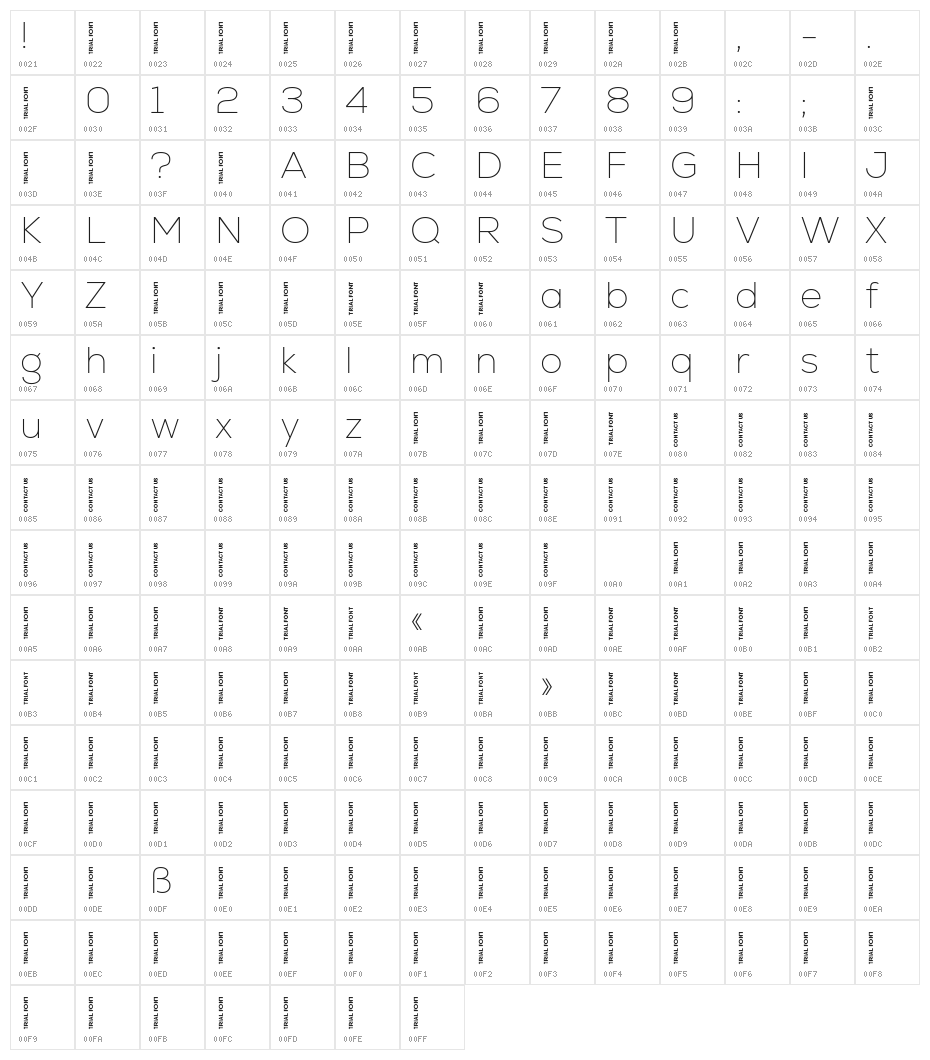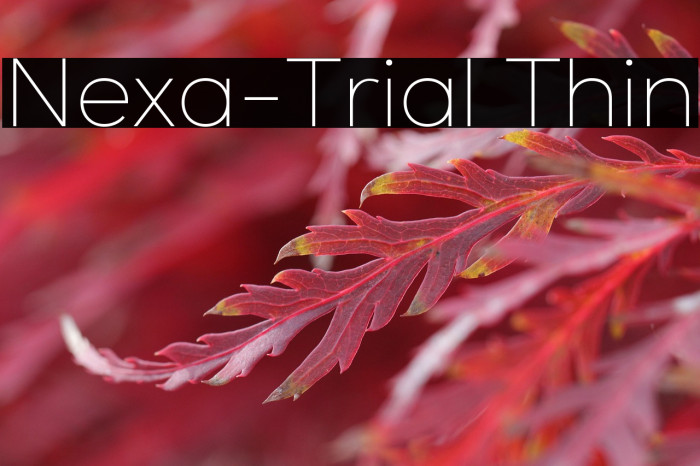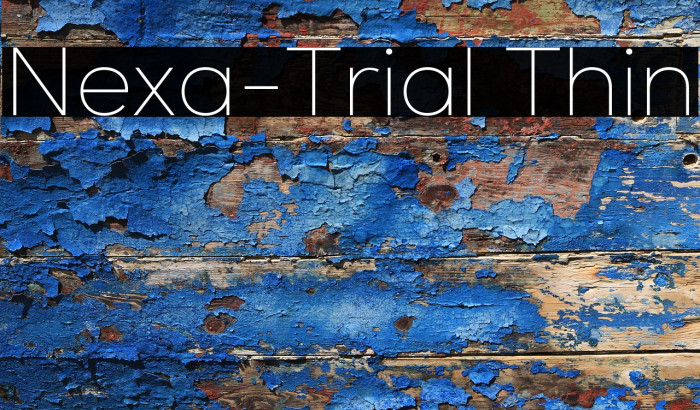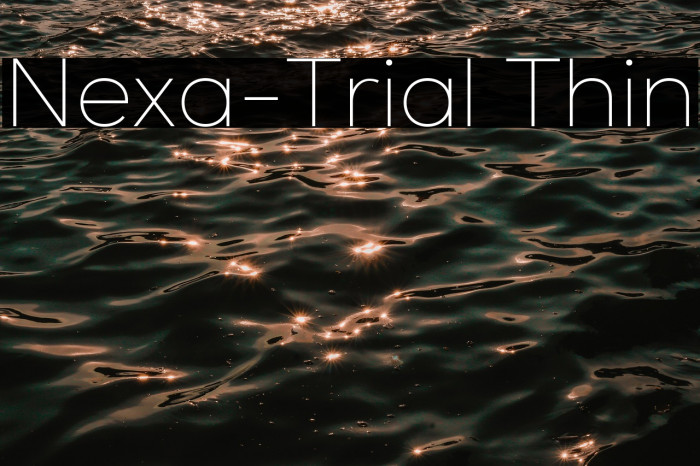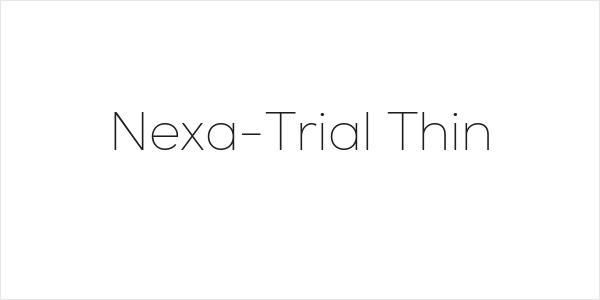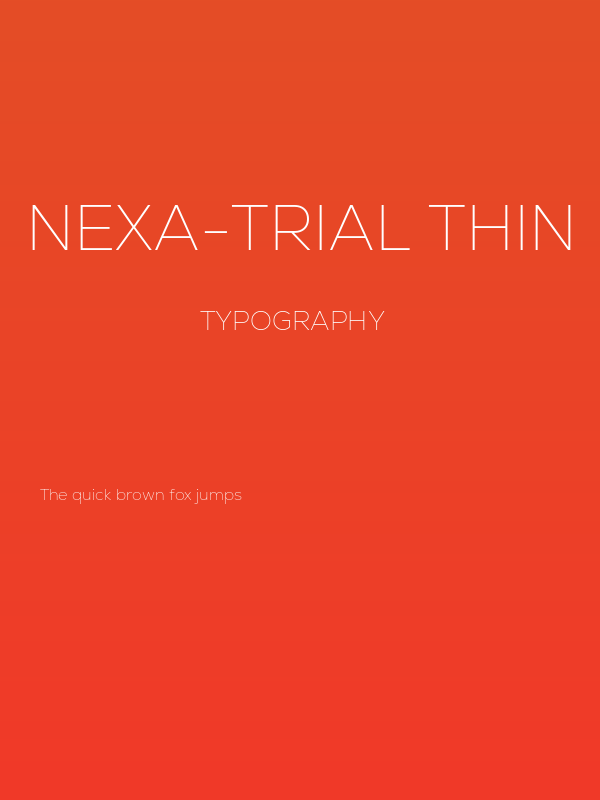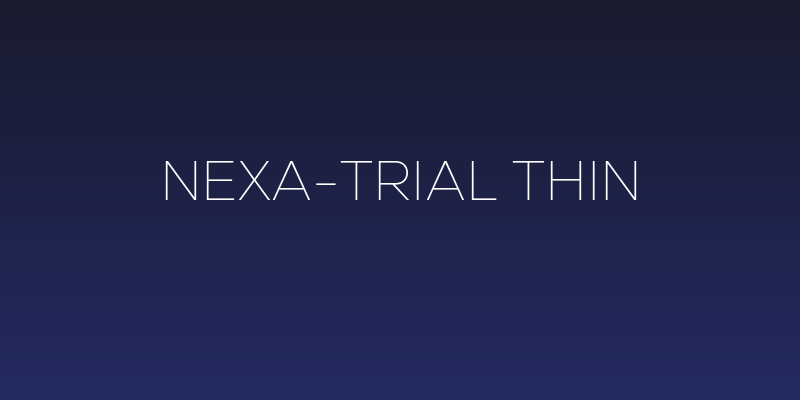
Nexa-Trial Thin Font
Nexa-Trial Thin Description
This font features a clean and modern sans-serif design with a thin, elegant line weight. The characters are well-proportioned, offering a harmonious balance between height and width. Its geometric shapes and smooth curves provide a contemporary feel, making it highly legible and versatile. The font maintains a consistent stroke width throughout, contributing to its minimalist aesthetic. The spacing between characters is normal, ensuring readability without appearing cramped. This font is suitable for a wide range of applications, from digital interfaces to print media.